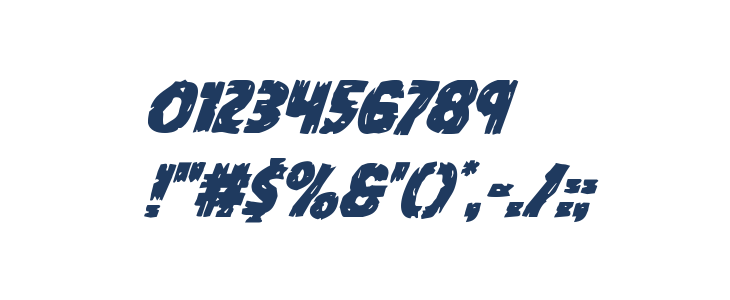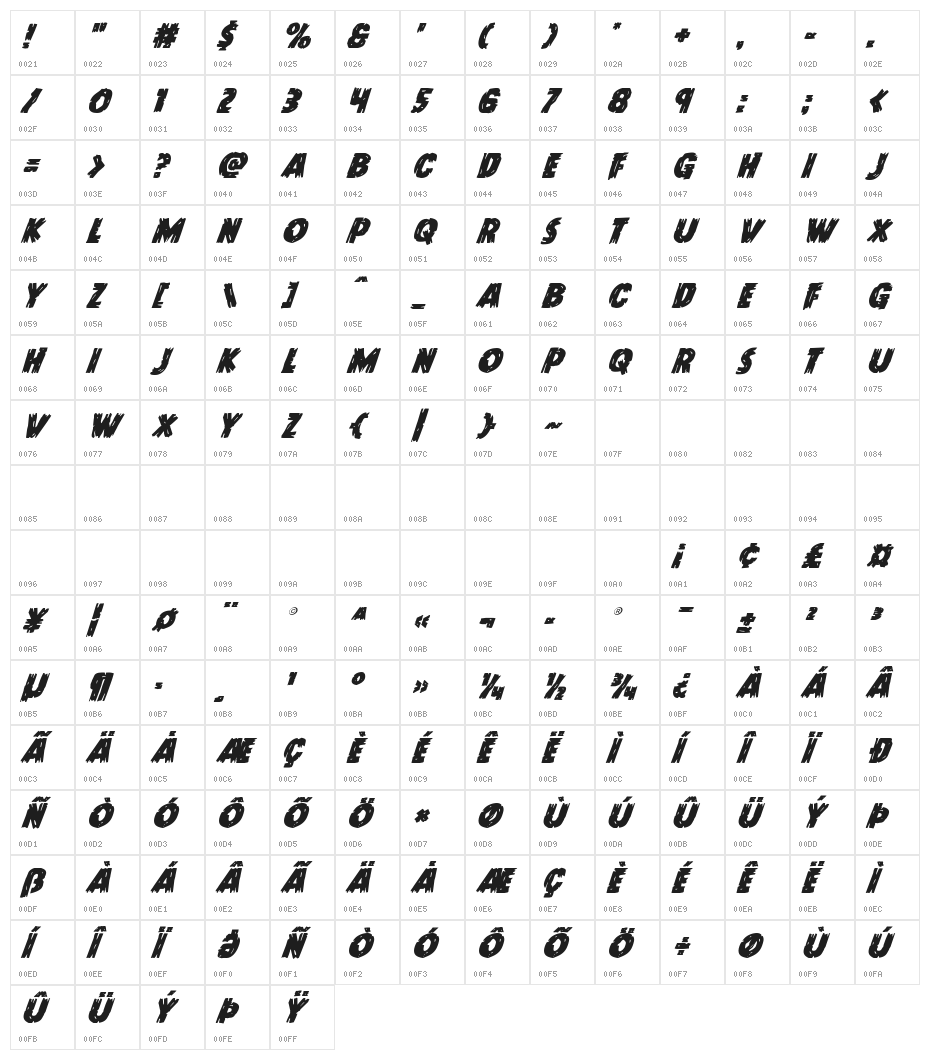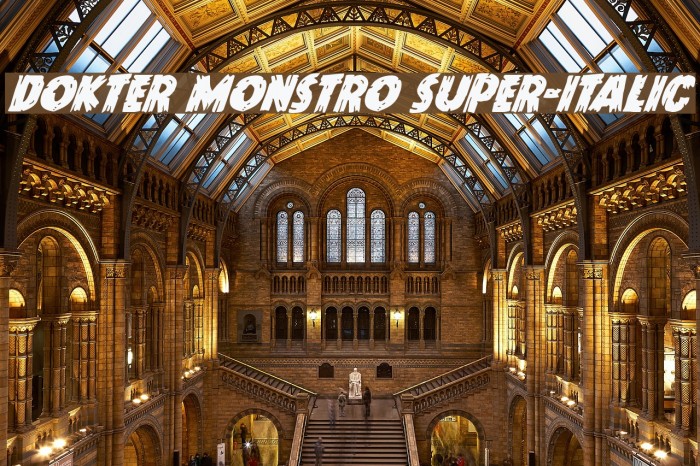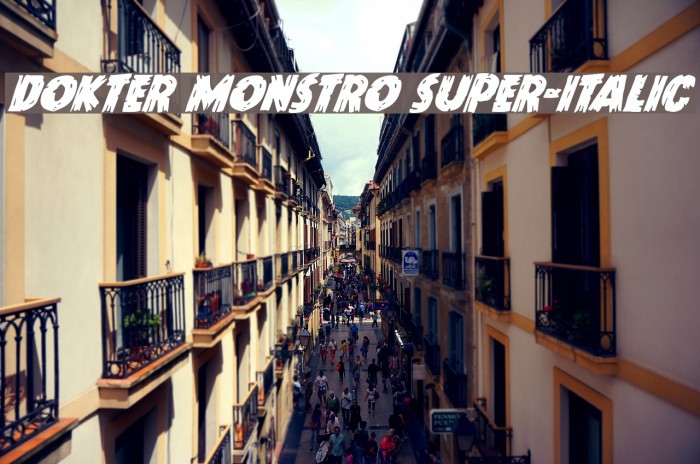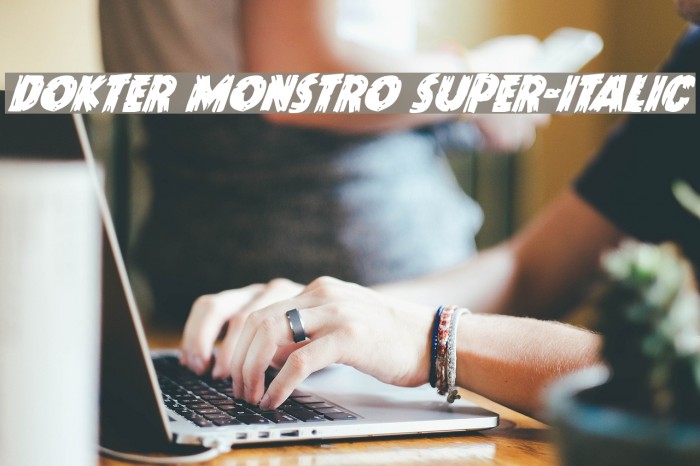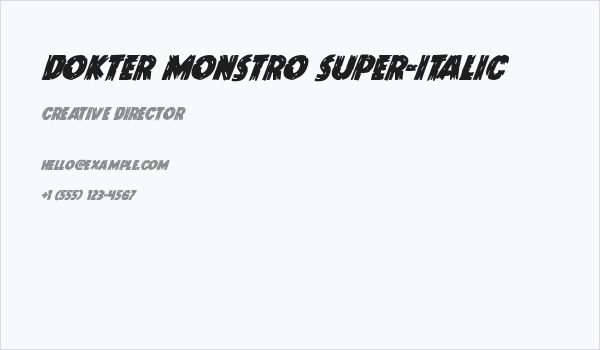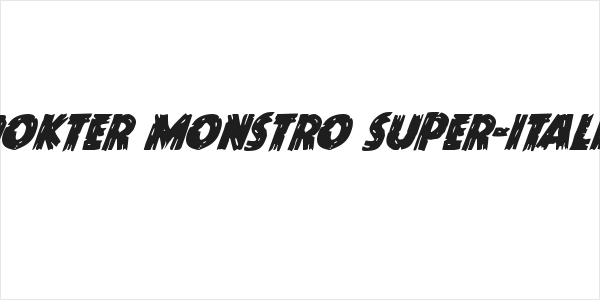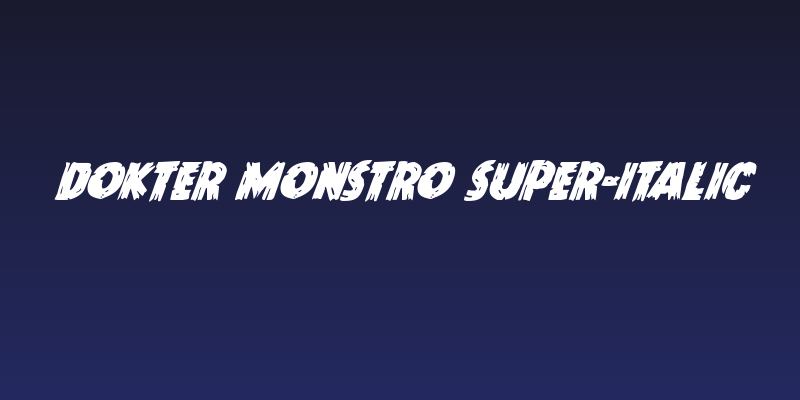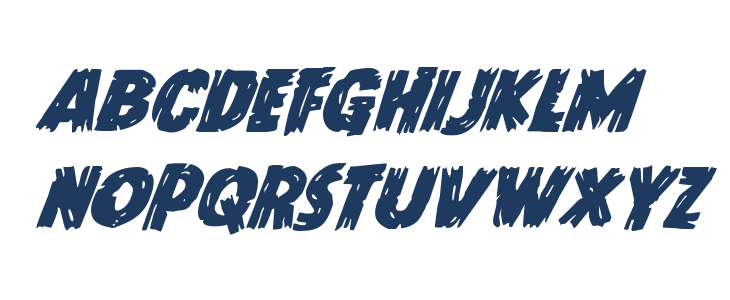
Dokter Monstro Super-Italic Font
Dokter Monstro Super-Italic Description
This font features a bold and dynamic style with a strong italic slant, giving it an energetic and aggressive appearance. The characters are heavily stylized with sharp, jagged edges and irregular strokes, creating a sense of movement and intensity. The uppercase and lowercase letters maintain a consistent design, while the numerals and special characters follow the same bold and expressive theme. The overall look is reminiscent of a comic book or graffiti style, making it stand out with its unique and eye-catching design.
| Proposed Projects | Ideal for projects requiring a dramatic and impactful look, such as comic books, posters, video game titles, or branding for edgy products. |